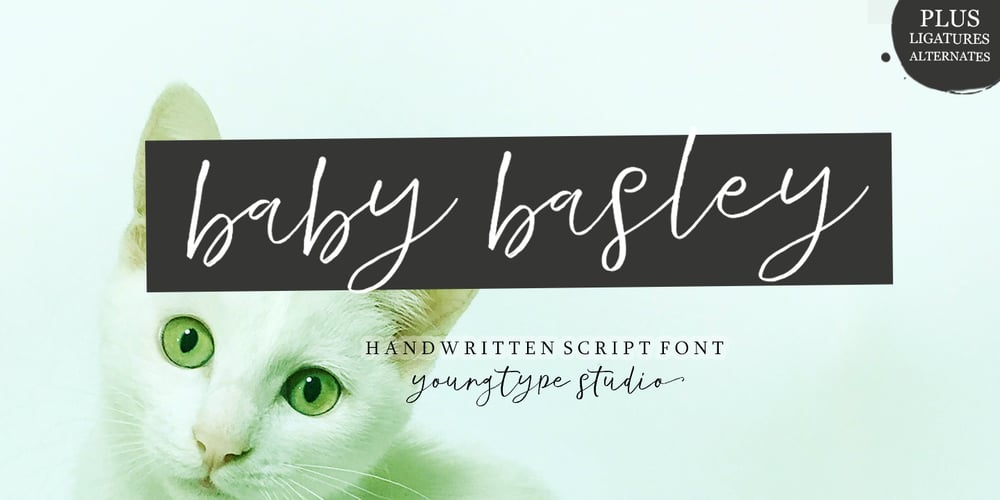
Baby Basley Font Family was designed by Naufal Paramata and published by Youngtype. Baby Basley contains 3 styles and family package options. Baby Basley is a hand brushed font made with brush and ink. This typeface is ideal for use in bold watercolor designs or handwritten styles, such as blog titles, posters, wedding elements, t-shirts, clothing, book covers, business cards, greeting cards, branding, merchandise, etc.Contains full set: Uppercase Lowercase Alternative Ligature Punctuation Number Multilingual support. And also Baby Basley Alternates and Underlines, working in sync with Baby Basley Regular to create incredible typographic creations. Get inspired by the preview above.How to access all alternative characters, using the Windows Character Map with Photoshop:https://www.youtube.com/watch?v=Go9vacoYmBwHow to access all alternative characters using Adobe Illustrator:https://www.youtube.com/watch?v=XzwjMkbB-wQ